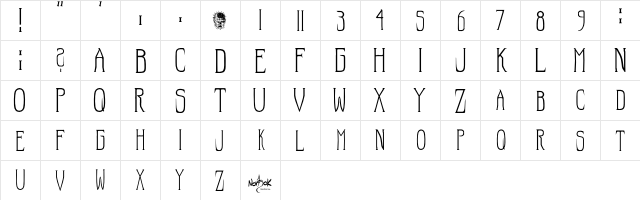
Hellraiser SC Regular
Regular ·  Thomas W.Otto ·
Design Context for Hellraiser SC Typeface
Hellraiser SC is a composed and adaptable typeface that performs quietly and consistently across a wide range of design contexts.